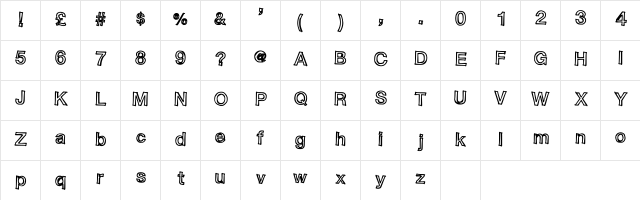
Sloppy Comic Regular
Design Context for Sloppy Comic Typeface
Sloppy Comic has an approachable, lighthearted character — its loose, expressive forms are well-suited to children's content, casual branding, and fun-first design.
Font Pairing: Pairs well with a rounded or humanist sans for body copy, maintaining the friendly tone without relying on Sloppy Comic to carry extended reading.
Pro Tip: Avoid using Sloppy Comic for long passages of text — it works best for headlines, labels, and short calls to action.